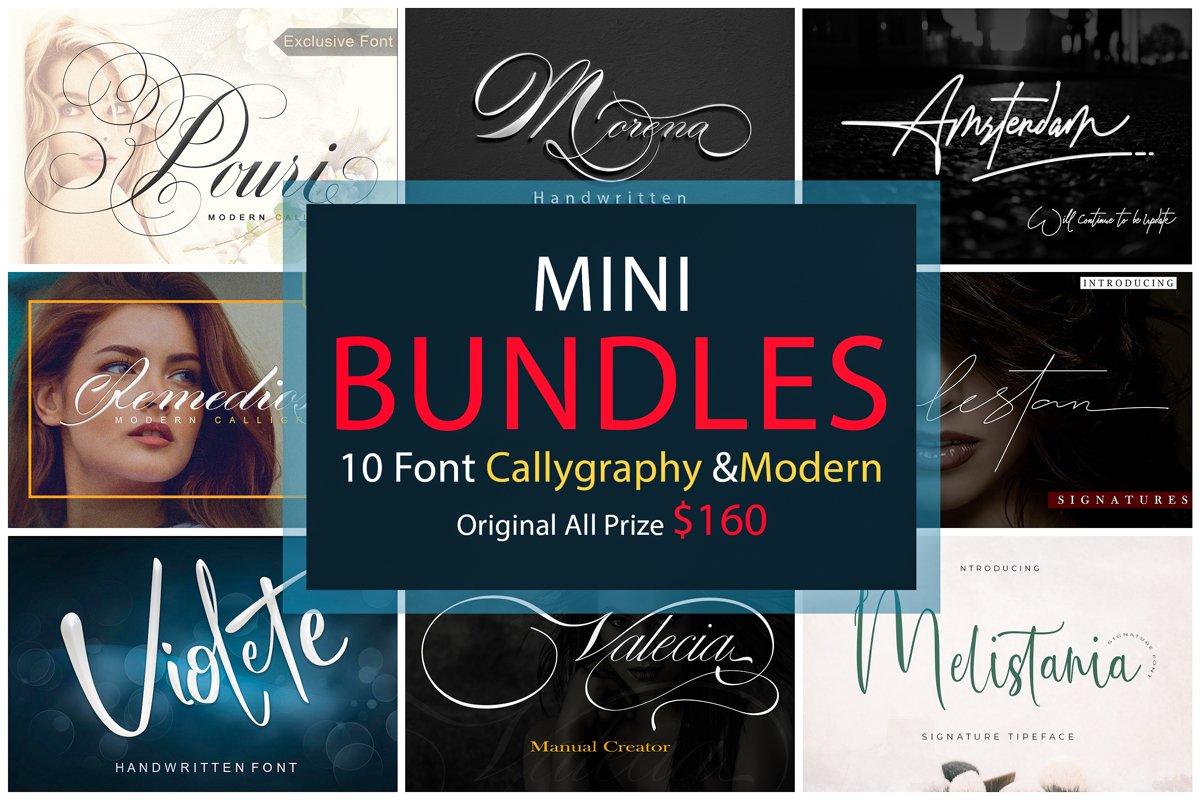
Mini Bundles
Valecia
Pouri
Calestan
Remedios
Suelita
MorenaFont
Classical Pen Scrip
violete
melistania
everlove
Mini Bundle 10 items of classic calligraphy fonts, unique and modern, you can get yourself 10 nice calligraphy fonts to be used in various media. We have mixed this font with classic and modern ones.
With a variety of OpenType features including Standard Ligatures, Stylistic Alternates and Stylistic Sets, your latest project will stand out in a script style that is truly natural and elegant.